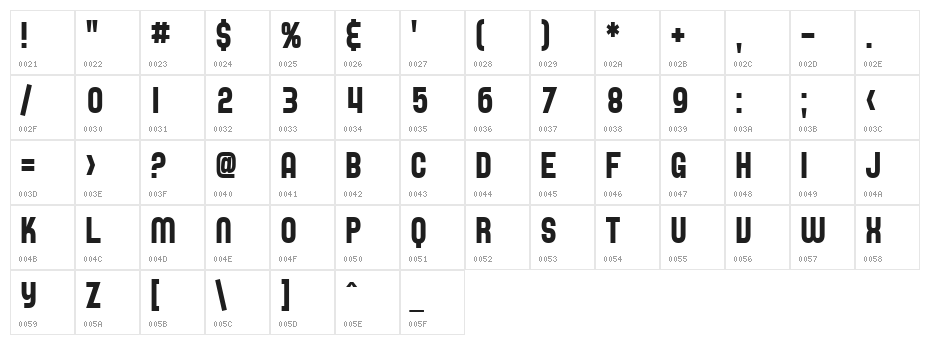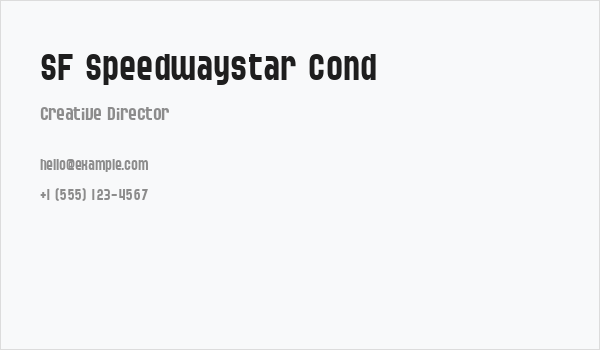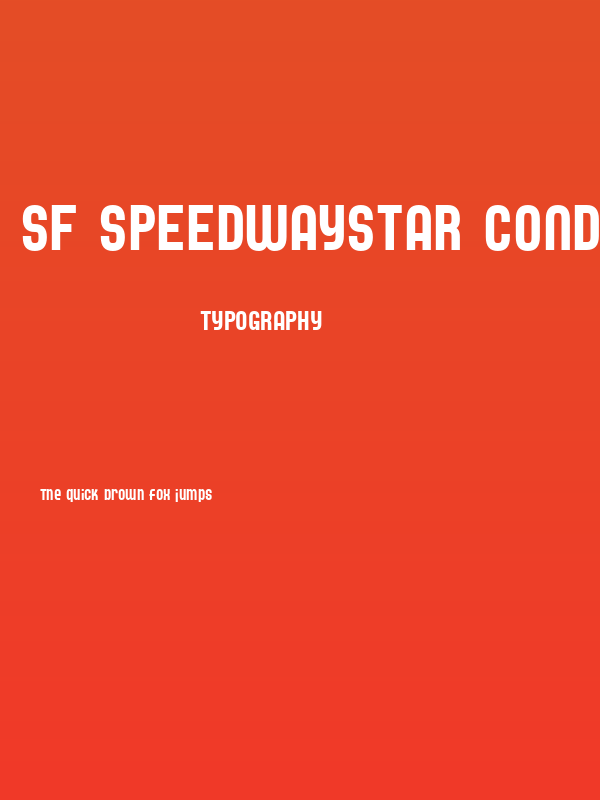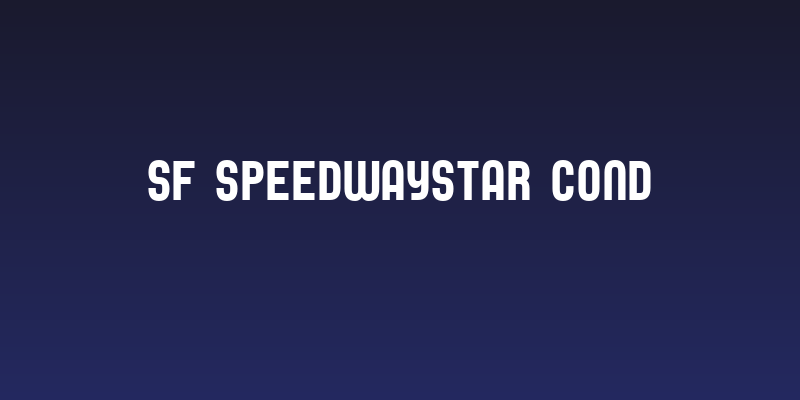
SF Speedwaystar Cond Font
SF Speedwaystar Cond Description
This font features a bold and condensed style, characterized by thick, uniform strokes that give it a strong and impactful presence. The uppercase and lowercase letters maintain a consistent height, enhancing readability and creating a cohesive look. The numbers and special characters are designed to match the boldness of the alphabet, ensuring a harmonious appearance across all characters. The font's geometric shapes and clean lines contribute to its modern and professional aesthetic, making it suitable for a variety of design applications.
Proposed ProjectsIdeal for headlines, posters, branding, and any design requiring a strong visual impact.